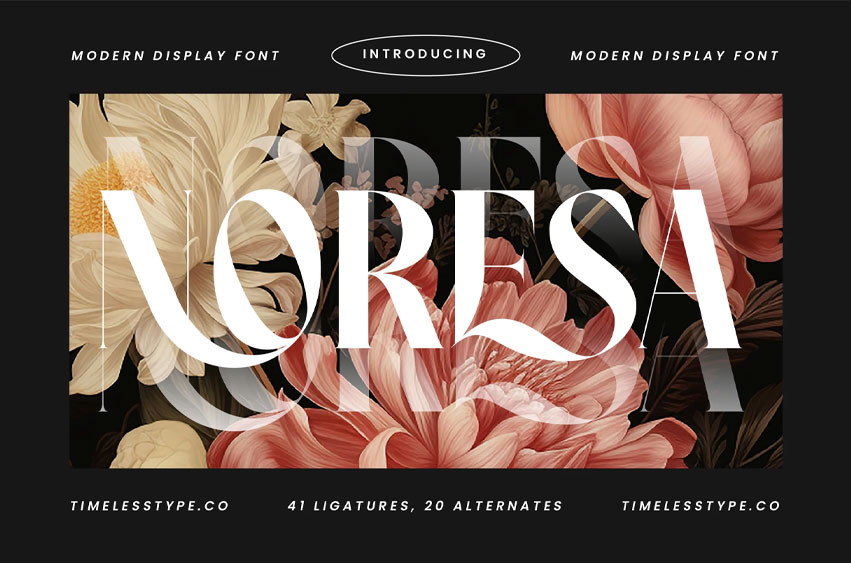
Noresa Font is a luxurious modern display serif font defined by dramatic contrast, sculpted curves, and elegant high-detailing. Its graceful letterforms combine refined sophistication with artistic expression, making it perfect for editorial layouts, luxury branding, perfume packaging, wedding invitations, and stylish logo design. The font delivers a timeless, couture-inspired aesthetic that elevates any visual project.
With 41 exquisite ligatures and 20 refined alternates, Noresa gives designers extensive creative flexibility for crafting expressive headlines, ornamental compositions, and premium typographic identities. Its sweeping curves, elongated serifs, and polished structure make it an ideal choice for projects seeking elegance, modernity, and artistic flair.